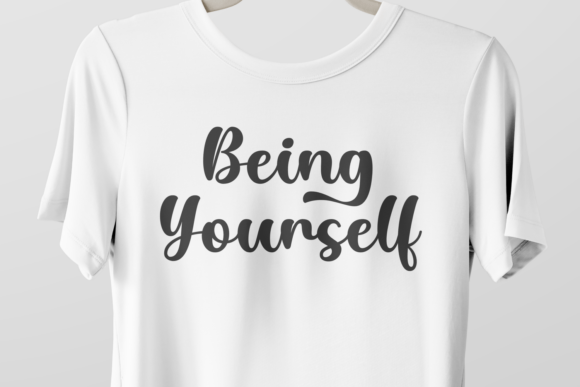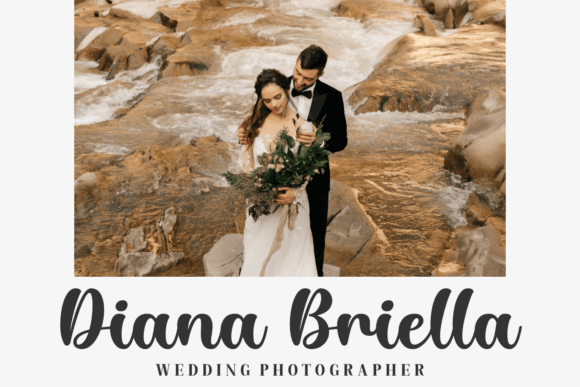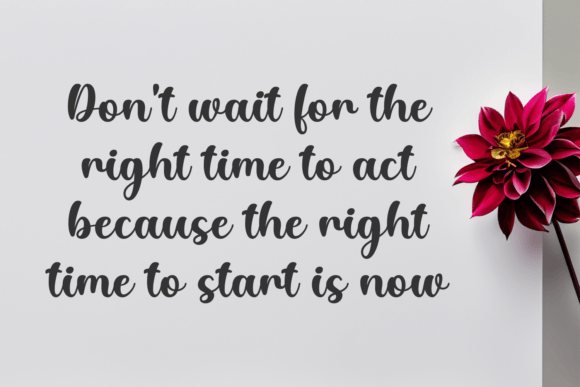
Give Your Designs the Perfect Amount of Attitude
Have you ever been scrolling through social media and stumbled upon a post that stopped you in your tracks? A beautifully crafted graphic with bold, stylish typography that screams confidence and sophistication? That’s exactly what happens when designers use the right font, and that’s where the Better Admire Font comes in.
This stunning script font is designed to add a modern touch to your designs, making it perfect for branding, logos, and product packaging. Its smooth curves and dynamic strokes will give your projects the charm and impact they need to stand out. Whether you’re working on a print or digital project, the Better Admire Font is a versatile and valuable addition to your design toolkit.
Better Admire Font Key Features
- Font Family: Better Admire
- Unique Characteristics: A modern script font with elegant and sophisticated feel, ideal for invitations, wedding designs, and other special occasions
Designer Review: Better Admire Font
I recently had the chance to work with the Better Admire Font, and I must say it’s a mixed bag. While it has some great qualities, it also has some notable limitations. Let’s dive in and explore what works well and what doesn’t.
- Unique Character**: The Better Admire Font has a distinct personality that sets it apart from more common fonts. It’s perfect for designers looking to add a touch of whimsy to their projects.
- Good Legibility**: Despite its quirky nature, the font is still easy to read, even at smaller font sizes.
- Large Character Set**: The font includes a wide range of characters, including ligatures, alternates, and even some fun emojis.
- Not Ideal for Body Text**: While the font is great for headlines and titles, it’s not the best choice for large blocks of body text. It can be overwhelming and difficult to read.
- Limited Customization Options**: The font is relatively rigid, with limited options for adjusting font weights, styles, or even basic kerning.
Overall, I think the Better Admire Font is a great choice for designers looking to add a touch of personality to their projects. However, it’s not a good all-around font, and designers should be aware of its limitations before using it extensively.
Tips for Getting the Most Out of “Better Admire Font”
Use “Better Admire Font” for headings and titles to create a visually appealing design.
Pair it with a bold font for contrast and emphasis.
Use it in combination with other fonts to create a unique and stylish design.
“Better Admire Font” is ideal for:
Creating eye-catching headings and titles.
Designing social media graphics and ads.
Developing branding materials and logos.